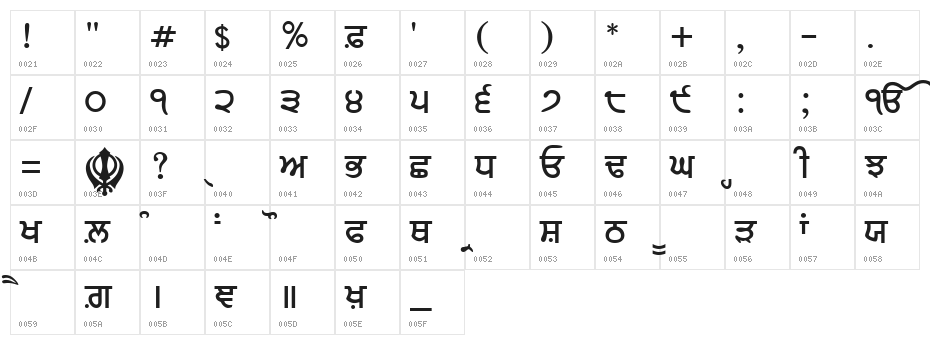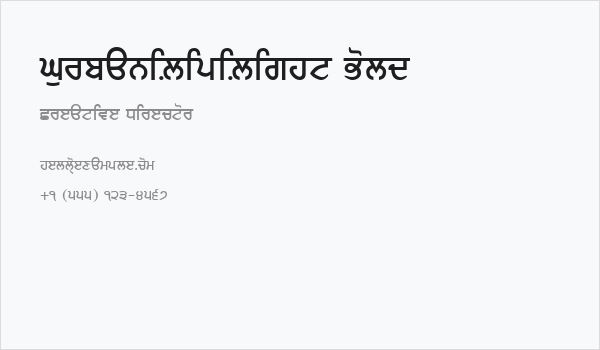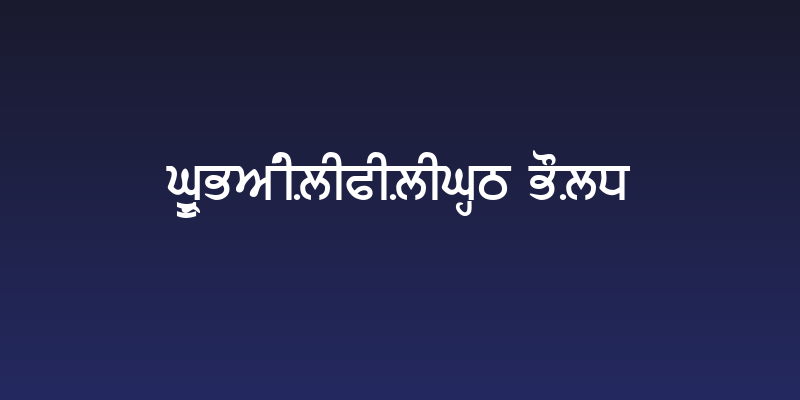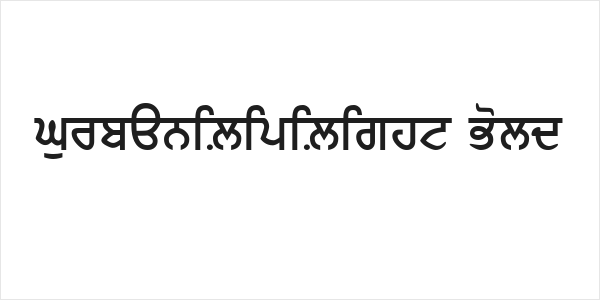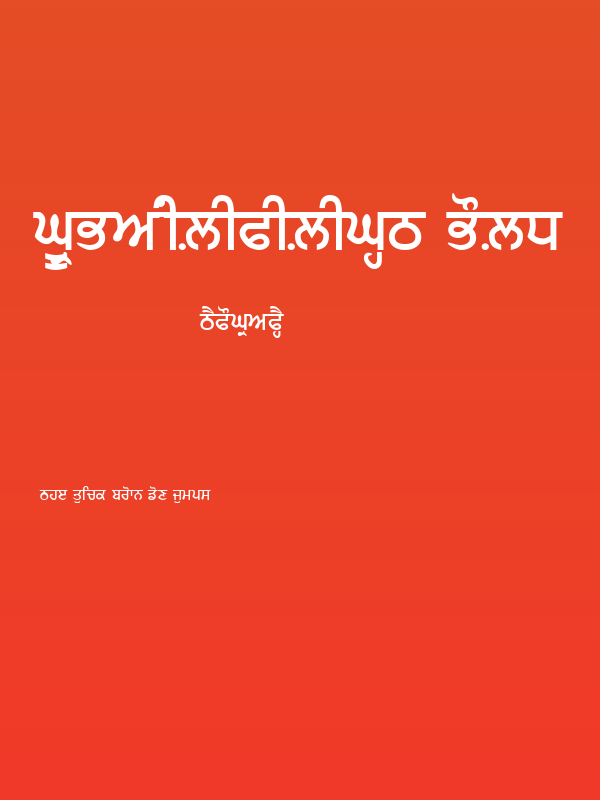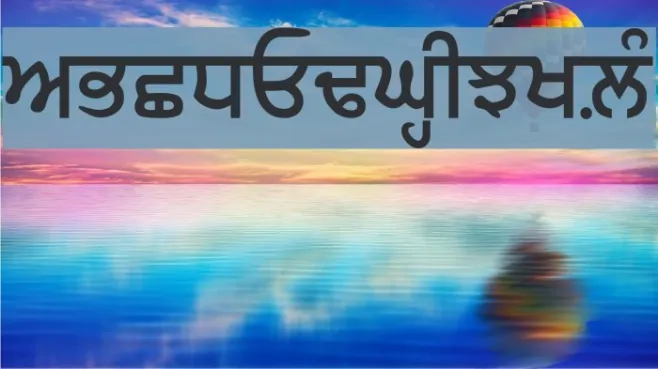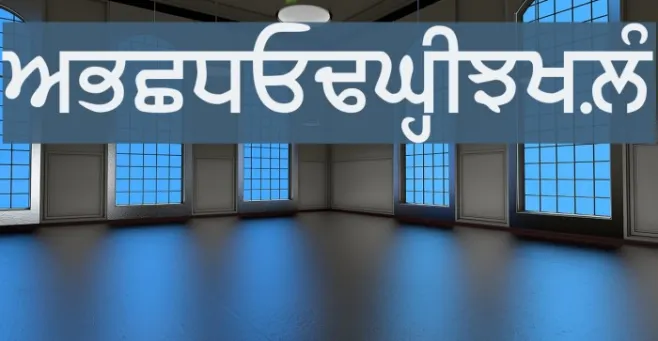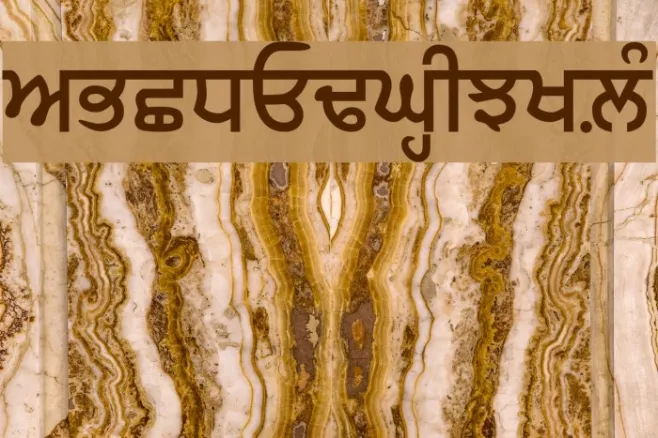
GurbaniLipiLight Bold Font
GurbaniLipiLight Bold Description
This font showcases a bold and distinctive style, characterized by its strong, rounded letterforms and high legibility. The characters are well-defined with a consistent stroke width, giving it a uniform appearance. The script is designed to accommodate the unique features of the Gurmukhi script, with attention to the traditional calligraphic elements. The numerals and special characters are harmoniously integrated, maintaining the overall aesthetic. This font is suitable for both digital and print media, offering versatility in various design applications.